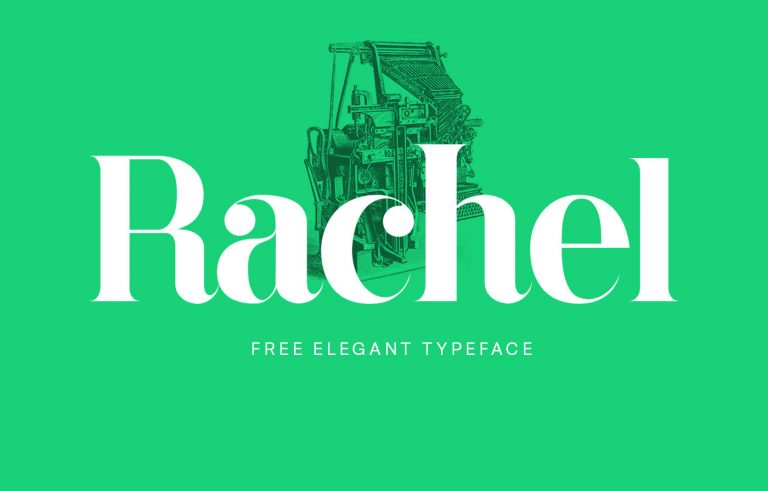
Rachel Typeface
Rachel – is a serif typeface designer and shared by Danilo De Marco in 2015. The design is inspired by Bodoni typeface designed by Giambattista Bodoni and Lapiday Roman characters. It’s able to add a little bang and sophistication to your work and also hold its own around those pretty scripts!